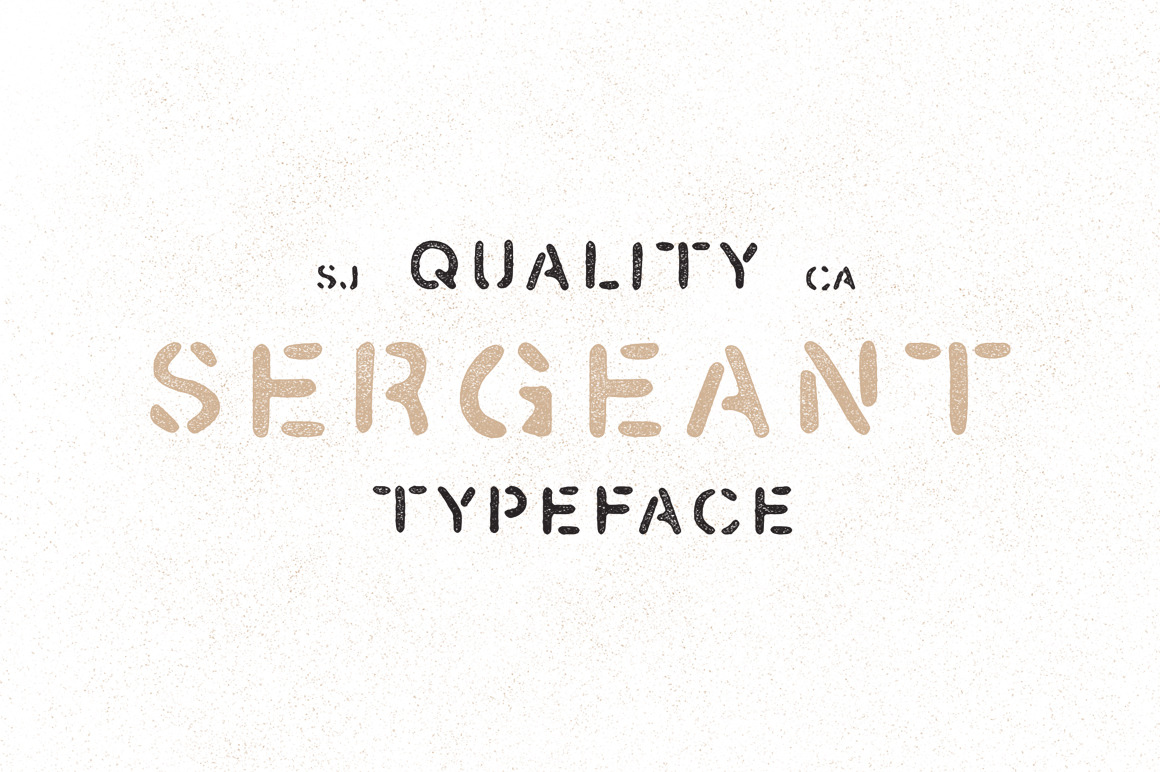
Sergeant - Hand Drawn Stencil Font
Sergeant was inspired by my love for stencil letters. I wanted a font that was inspired by a classic stencil, but also felt very hand drawn. It's perfect for your hand drawn logos and branding. This font comes in .TTF format and includes 10 numbers, Various Glyphs, and 26 letters. This font is best when used with my other hand drawn fonts: Oak & Ash and Pearl District. Grab it now for the Introductory rate of $12.